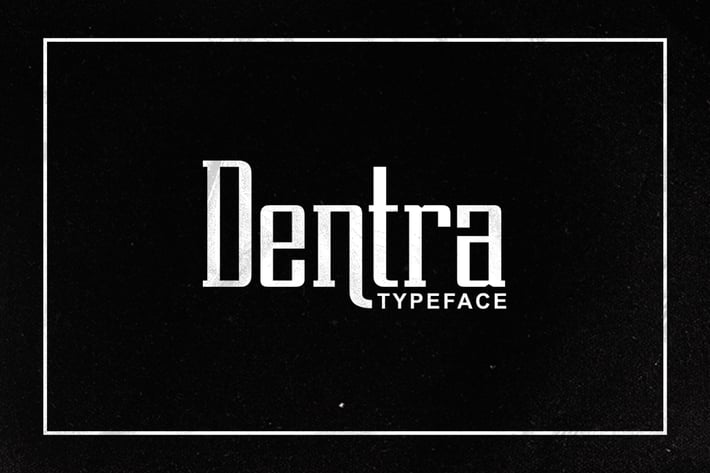
Dentra Typeface
Dentra Font
Dentra Font is a Vintage, modern style Vintage, which was created to meet the needs of your next design project.
Comes with upper and lowercase characters, large set of punctuation glyphs, numerals, and supports international languages.